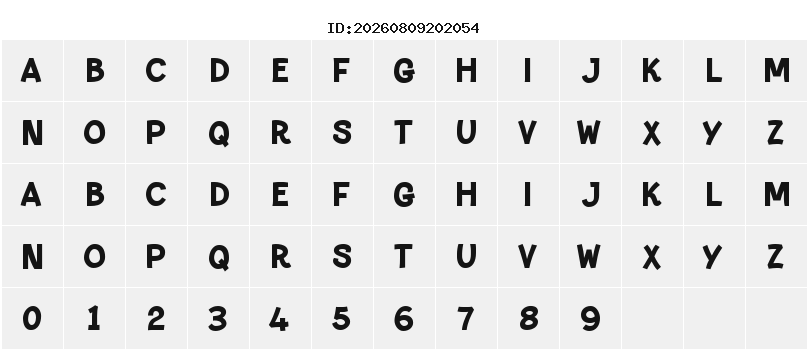
• Font Name: Paltime Solid
• Designer: Ray Larabie
About Paltime Solid.ttf
Paltime Solid.ttf is a modern, elegant sans-serif font designed for ultimate readability and visual harmony. Perfect for branding, headlines, web design, and print materials.